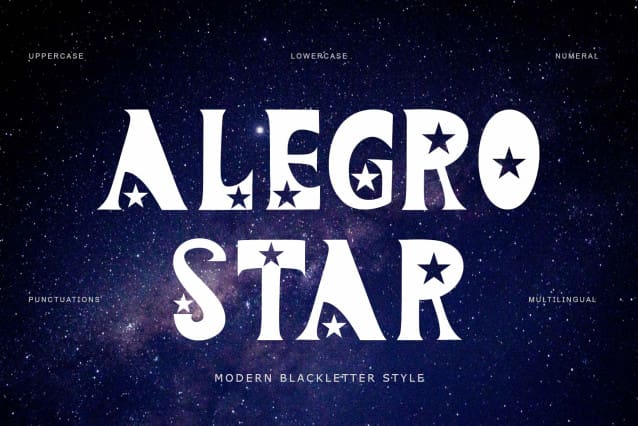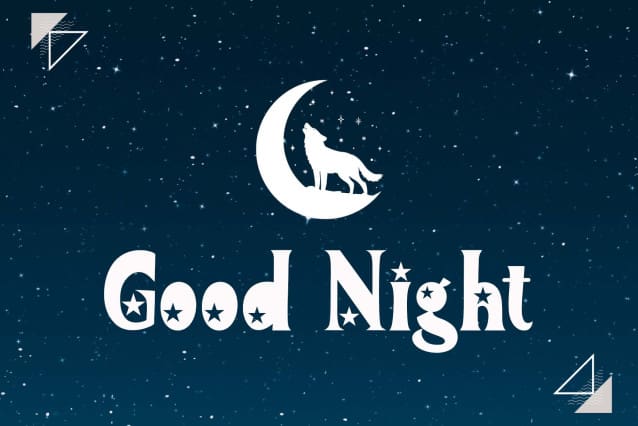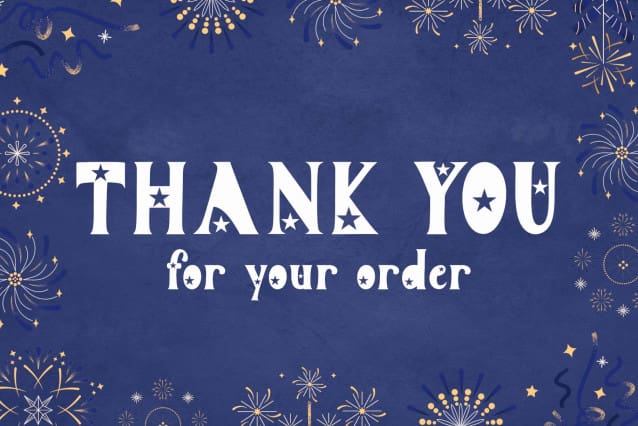
Alegro Star Font
Alegro Star Font is an elegant blackletter font with star decoration on each letter. This font is equipped with uppercase, lowercase, numerals, punctuations and multilingual support. Very suitable for patriotic, independent day, business branding, logos, banners, posters, prints and others.